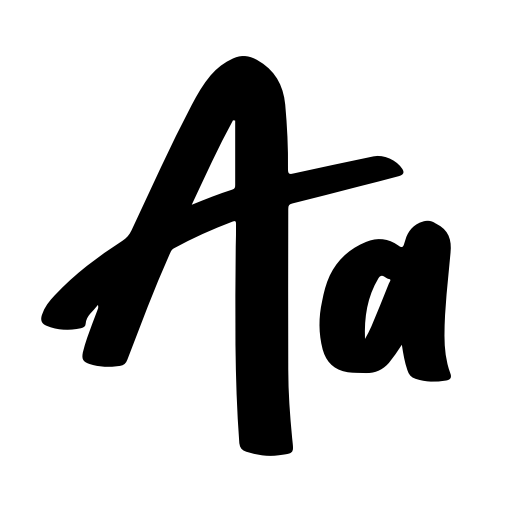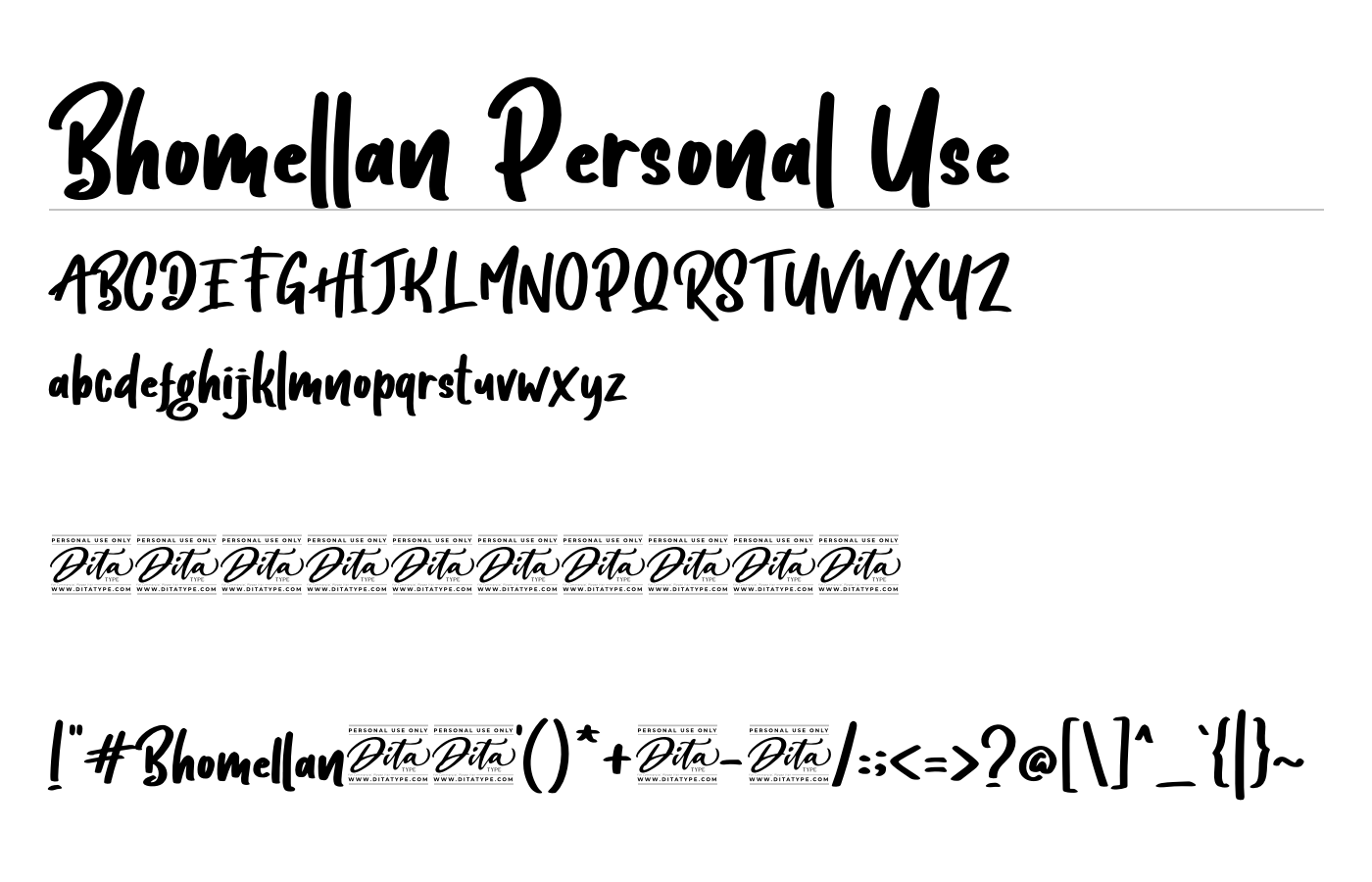
Bhomellan Personal Use is a lively, handwritten script font with a bold weight and playful charm. Its tall, slightly condensed letterforms feature brush-like strokes with smooth curves and a casual feel, making it perfect for creative projects that want an approachable yet eye-catching look. Ideal for logos, headlines, and branding, this font adds a friendly, modern touch while remaining highly legible and stylish.
Bhomellan Personal Use Font
About Bhomellan Personal Use Font